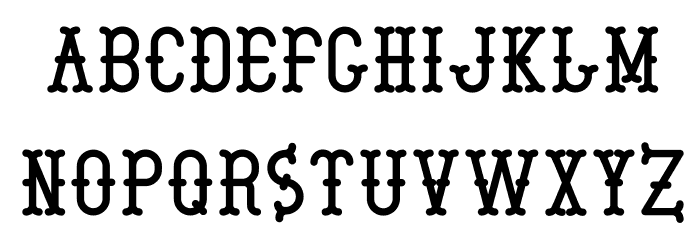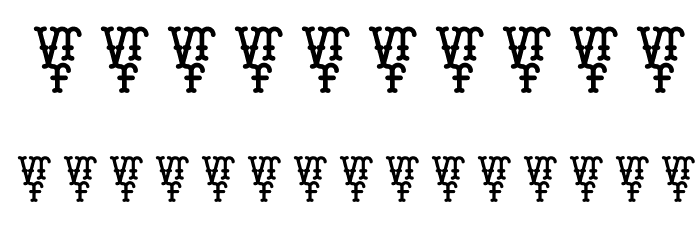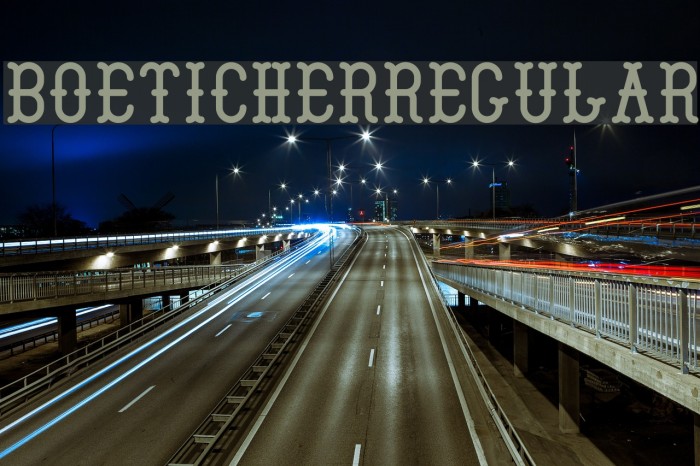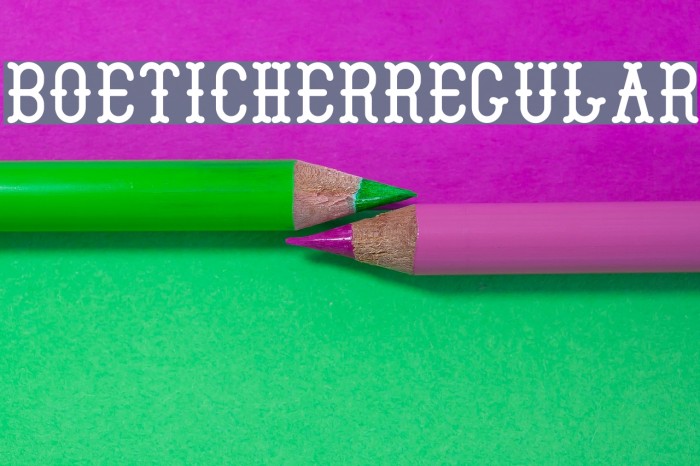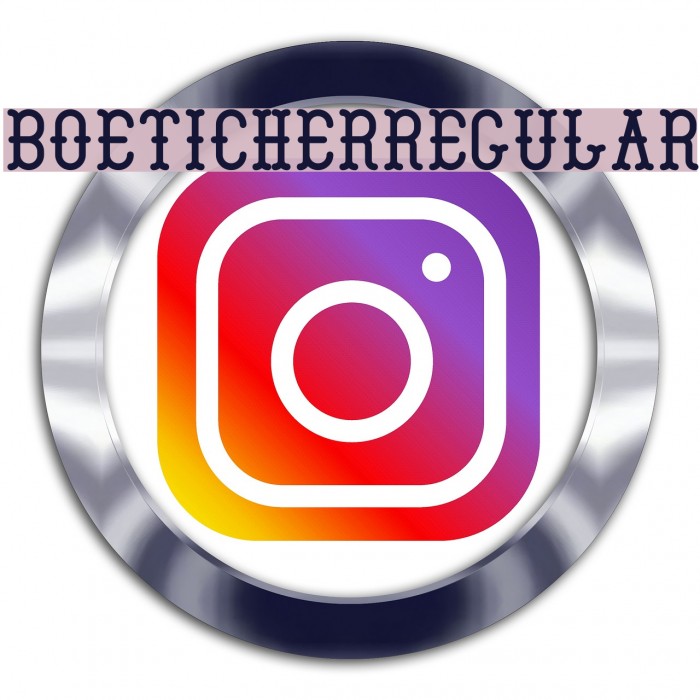
Boeticher-Regular Font
This font features a bold and decorative style with distinct, rounded serifs that give it a playful yet structured appearance. The characters are evenly spaced with a consistent weight, making it suitable for attention-grabbing headlines or titles. The uppercase letters are prominent and stand out with their unique design, while the lowercase letters maintain a similar aesthetic, ensuring uniformity across text. The numbers and special characters are crafted to match the overall style, providing a cohesive look. Its decorative elements make it ideal for projects that require a touch of creativity and flair.
A bold, decorative font with rounded serifs and consistent spacing, perfect for headlines.
- Proposed Projects: Ideal for posters, branding, logos, and any project needing a bold, decorative touch.